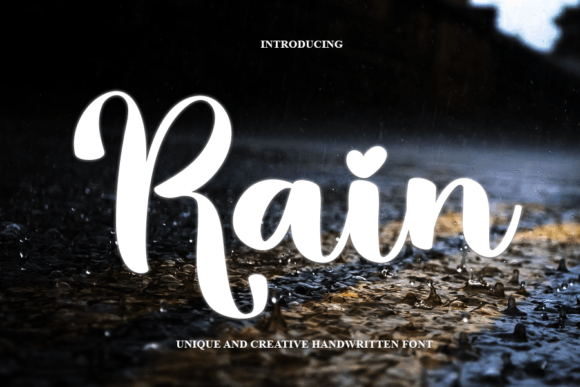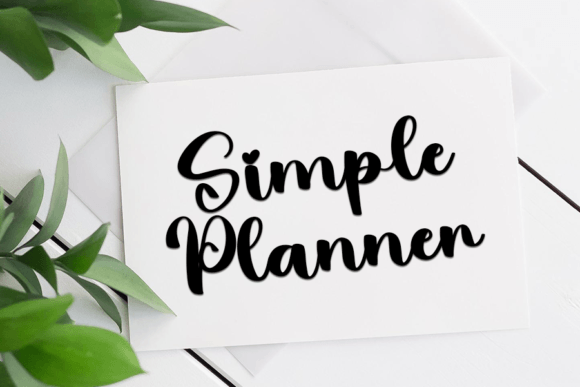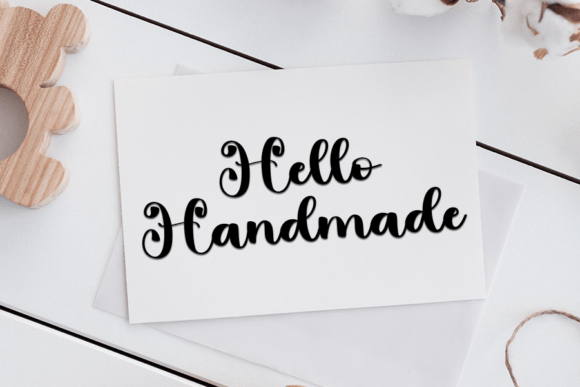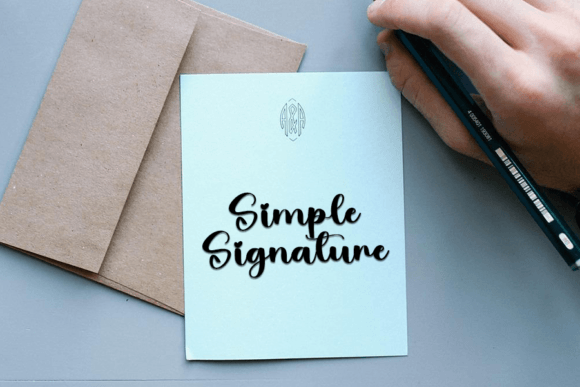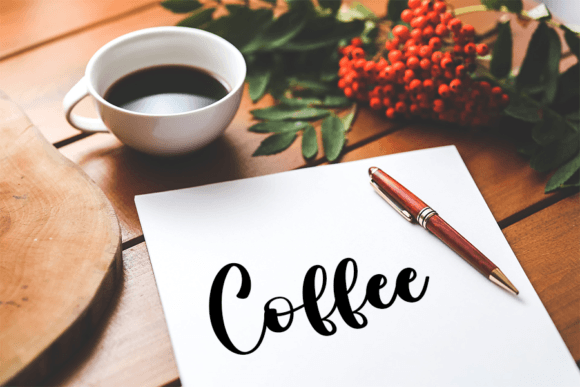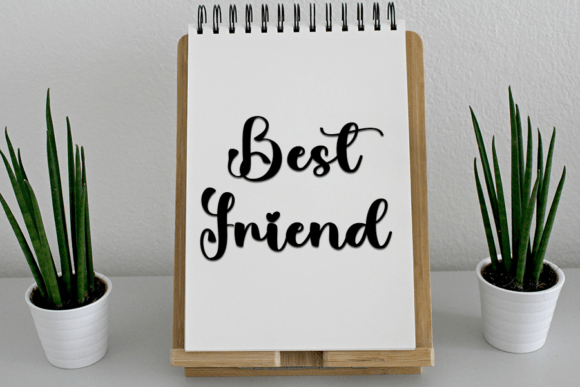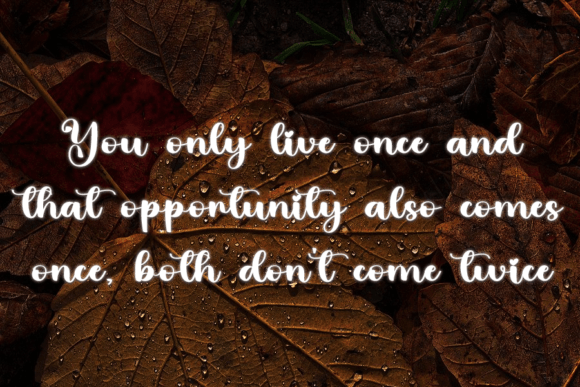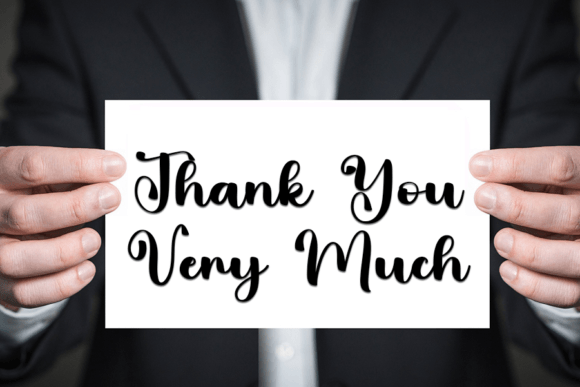
Rain Font
About Rain Font
Introducing “Rain” – Your Delicate Handwritten Font for Cool and Unique Designs!
“Rain” is not just a font; it’s a meticulously crafted delicate handwritten typeface designed to bring a cool and unique touch to a wide range of design projects. Whether you’re creating artistic lettering, crafting captivating invitations, developing eye-catching food product labels, designing stylish titles, or working on any creative endeavor that demands a distinctive flair, “Rain” is the perfect choice.
With “Rain,” you gain access to a font that effortlessly combines the delicacy of handwritten characters with the versatility to enhance a multitude of design contexts. Its cool and unique style adds a sense of personality and a touch of artistic charm to your text, ensuring that your content stands out vibrantly across various mediums.
Imagine using “Rain” to write artistic letters that captivate with their uniqueness, crafting invitations that convey a sense of style and individuality, developing food product labels that draw consumers in with their cool aesthetic, designing titles that capture attention with their distinct flair, or embarking on any creative project where a delicate handwritten touch is desired. This font’s adaptability and cool uniqueness make it an ideal choice for a diverse array of design projects.
Whether you’re an experienced designer seeking a delicate handwritten font or someone new to design looking to infuse cool and unique elements into your work, “Rain” is your ultimate typeface.
Don’t miss the opportunity to infuse your creative projects with a touch of coolness and uniqueness. “Rain” is here to help you craft captivating and distinct designs that resonate with your audience. Add it to your font collection today and experience the transformative power of its delicate handwritten style in your creative endeavors!